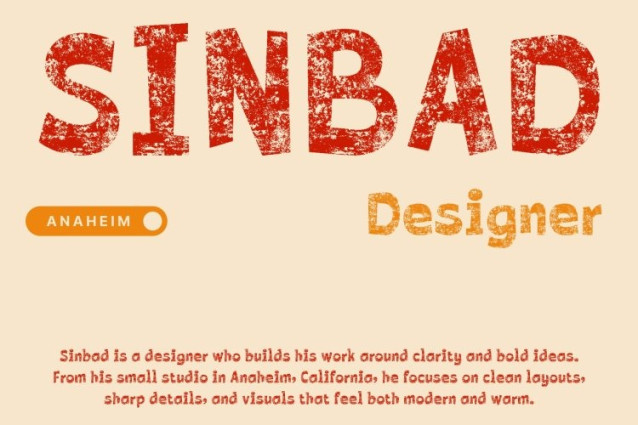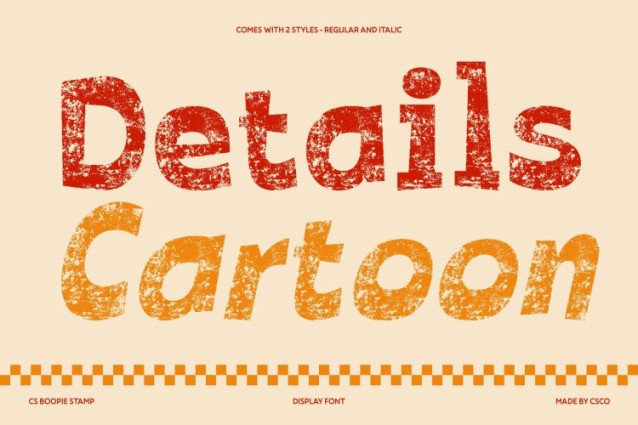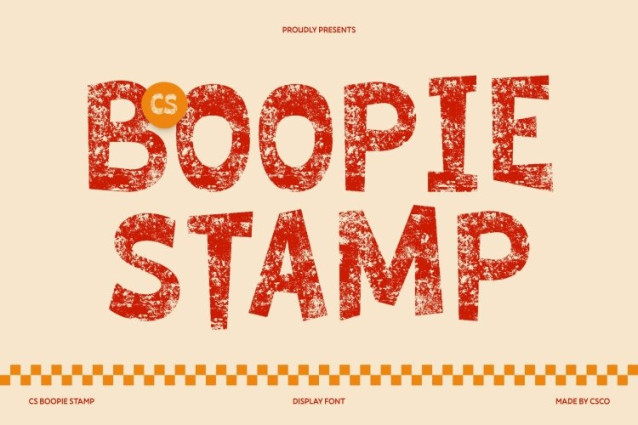
CS Boopie Stamp Font This is a bold display font that radiates fun, friendliness, and expressive energy now enhanced with a distinctive stamp texture. Its thick, rounded letterforms combine smooth curves and bubbly proportions, creating a cheerful and inviting personality. The textured finish adds a handcrafted, print-inspired feel that gives the font extra warmth and visual depth.
Fun Forms with a Lively Vintage Edge
The energetic shapes of this font maintain strong readability while delivering a relaxed and playful vibe. The subtle stamp effect introduces organic imperfections, making each letter feel dynamic and full of life perfect for designs that want to feel authentic, vibrant, and approachable.
Perfect for Engaging and Joyful Designs
Ideal for branding, event posters, packaging, children’s products, social media graphics, and promotional campaigns, this font ensures your message stands out with positivity and excitement. Its bold rounded structure evokes joy and warmth, while the textured character adds extra personality.
Add Even More Playful Impact
Combine this font with outlines, shadows, or layered color treatments to enhance its expressive nature. Whether used in print or digital formats, this font brings lively movement and entertaining charm to every design.